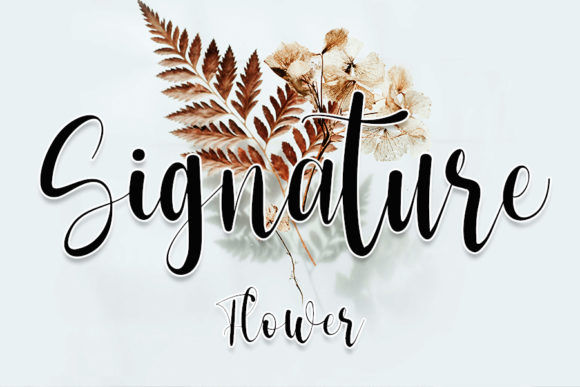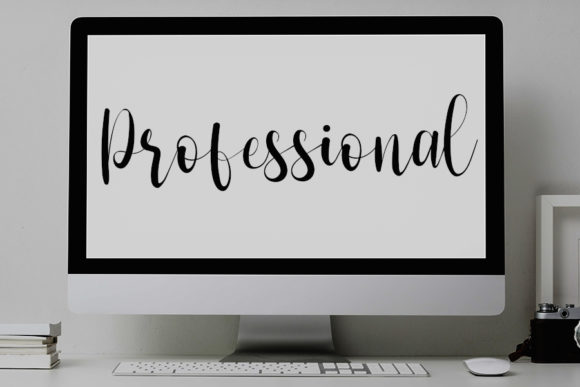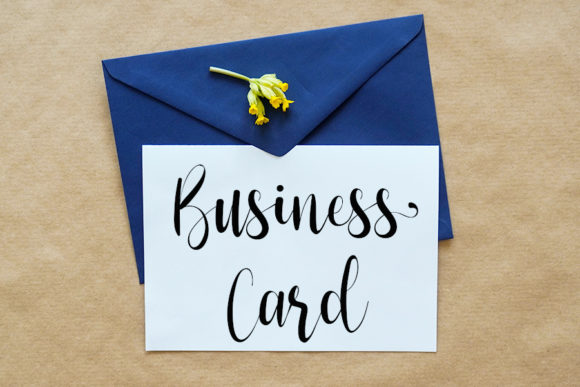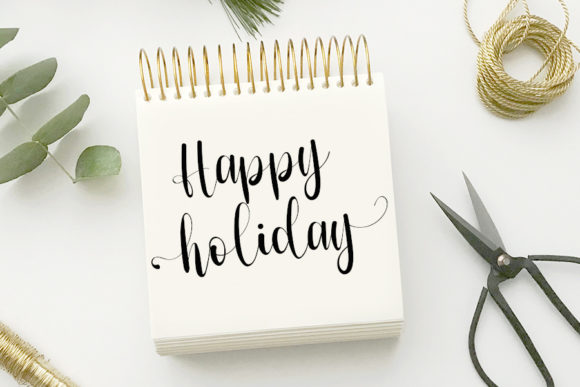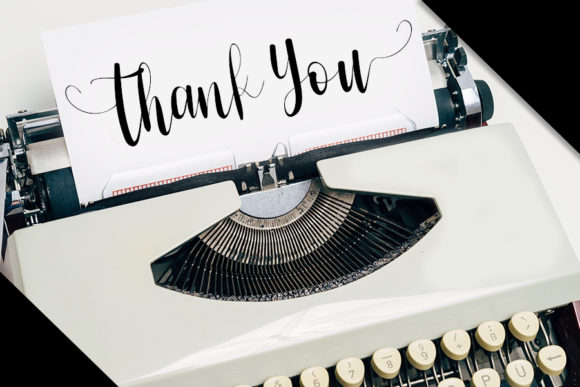
Introduction to Hello Ladies Font
Hello Ladies is a feminine and romantic script font with beautiful and delicate swashes.
Make any design look stunning with this font from your thank you cards, quotes, social media posts, or wall art to name a few This font is PUA encoded which means you can access the available glyphs and swashes with ease.
Key Features of Hello Ladies Font
Hello Ladies Font offers exceptional quality and versatility, making it a valuable addition to your design toolkit. Whether you’re creating for personal projects or commercial use, Hello Ladies Font delivers professional results.